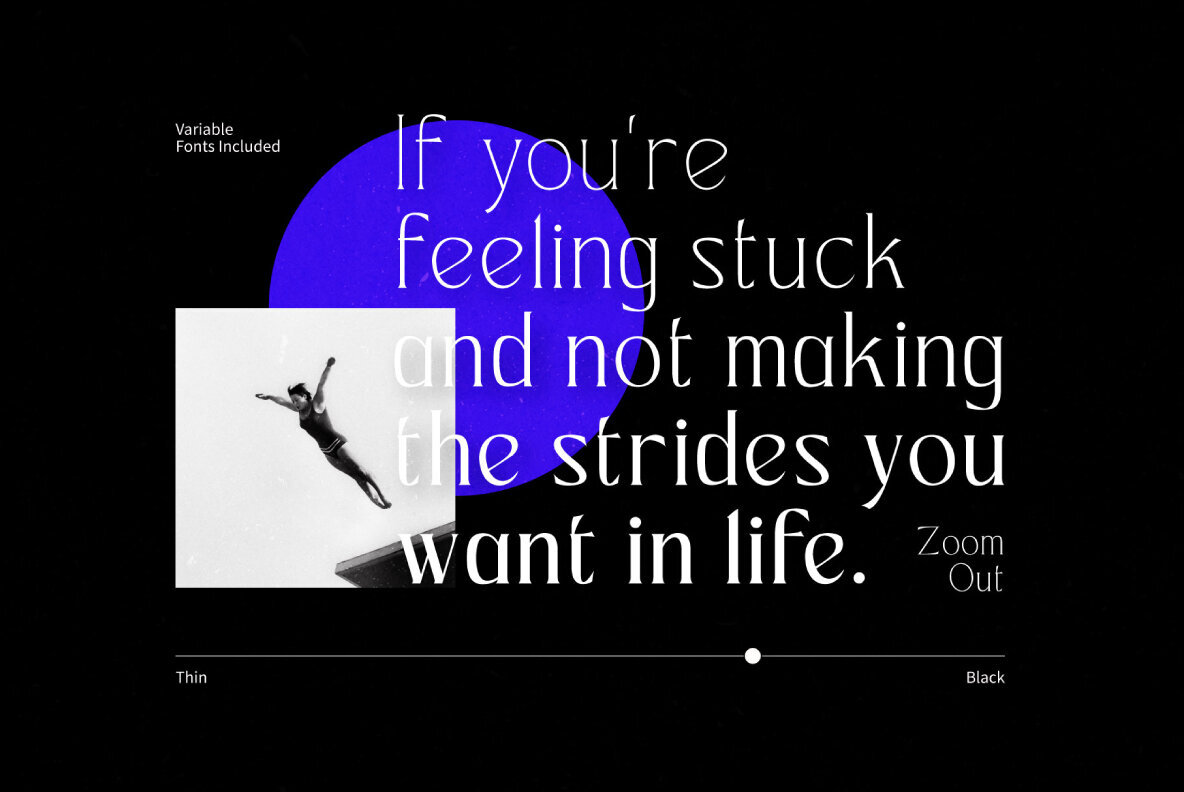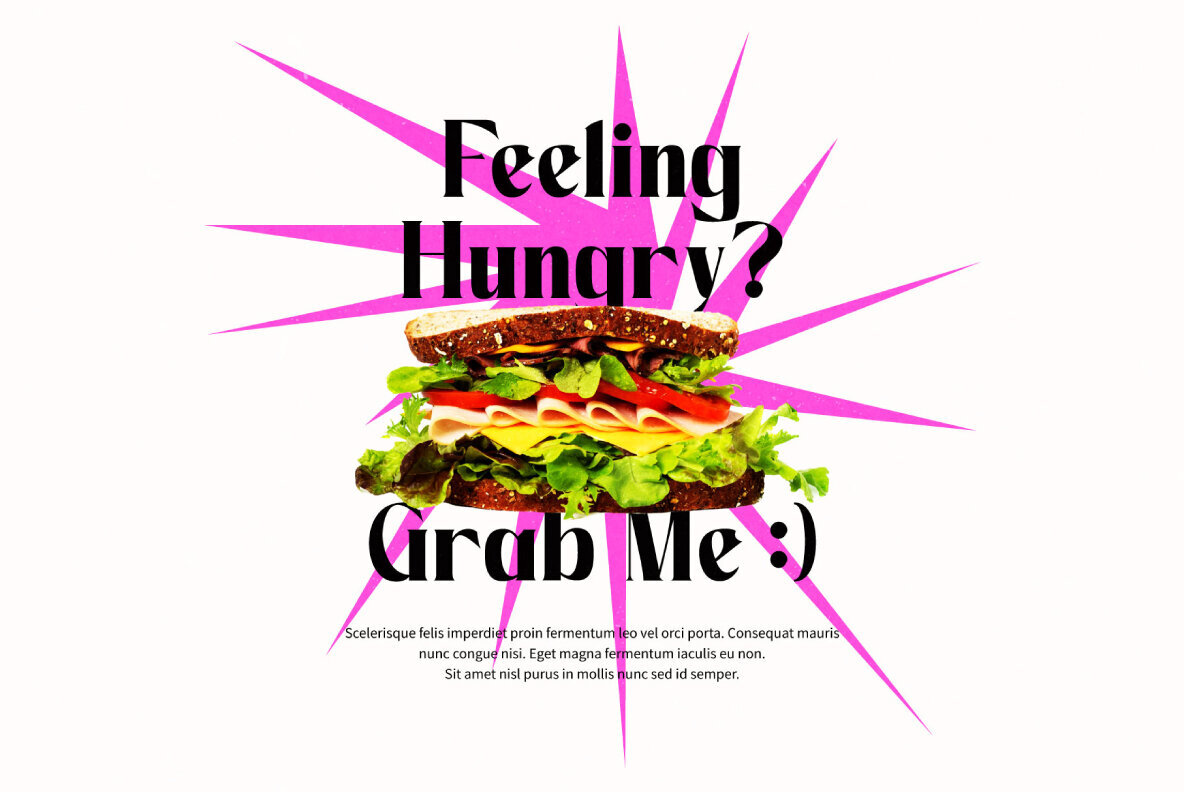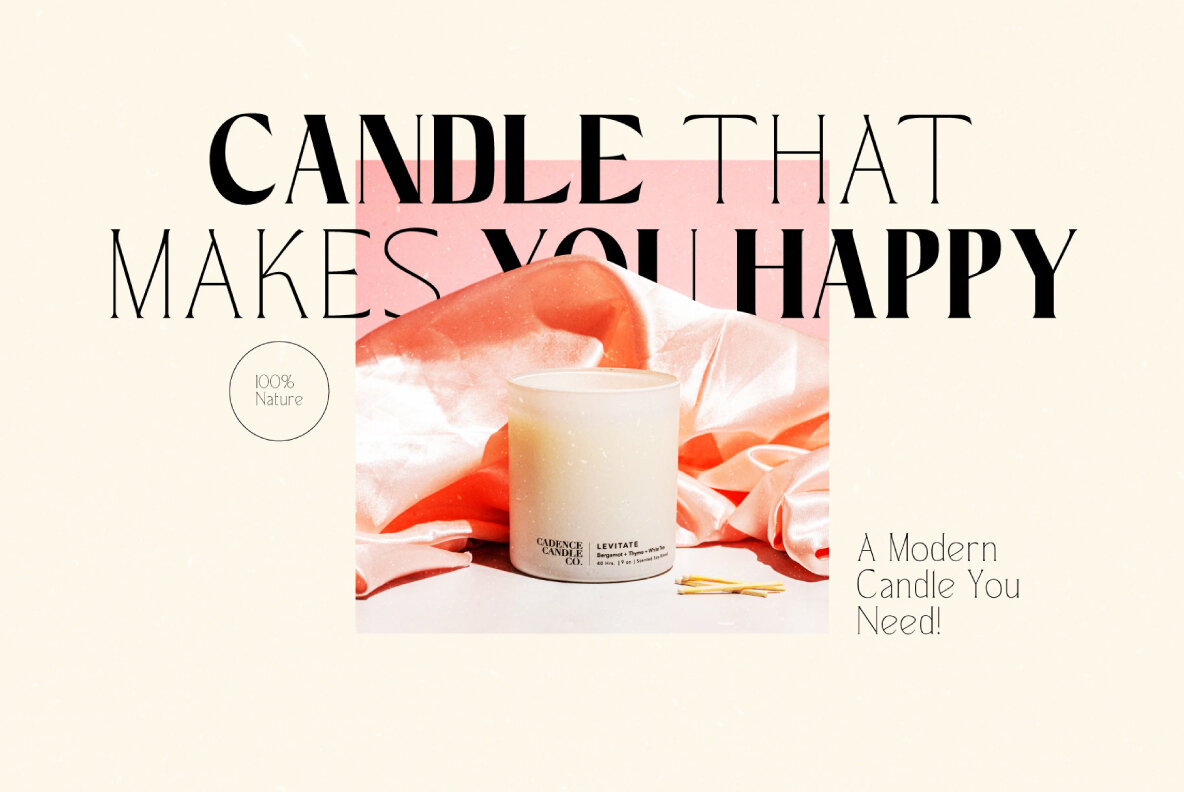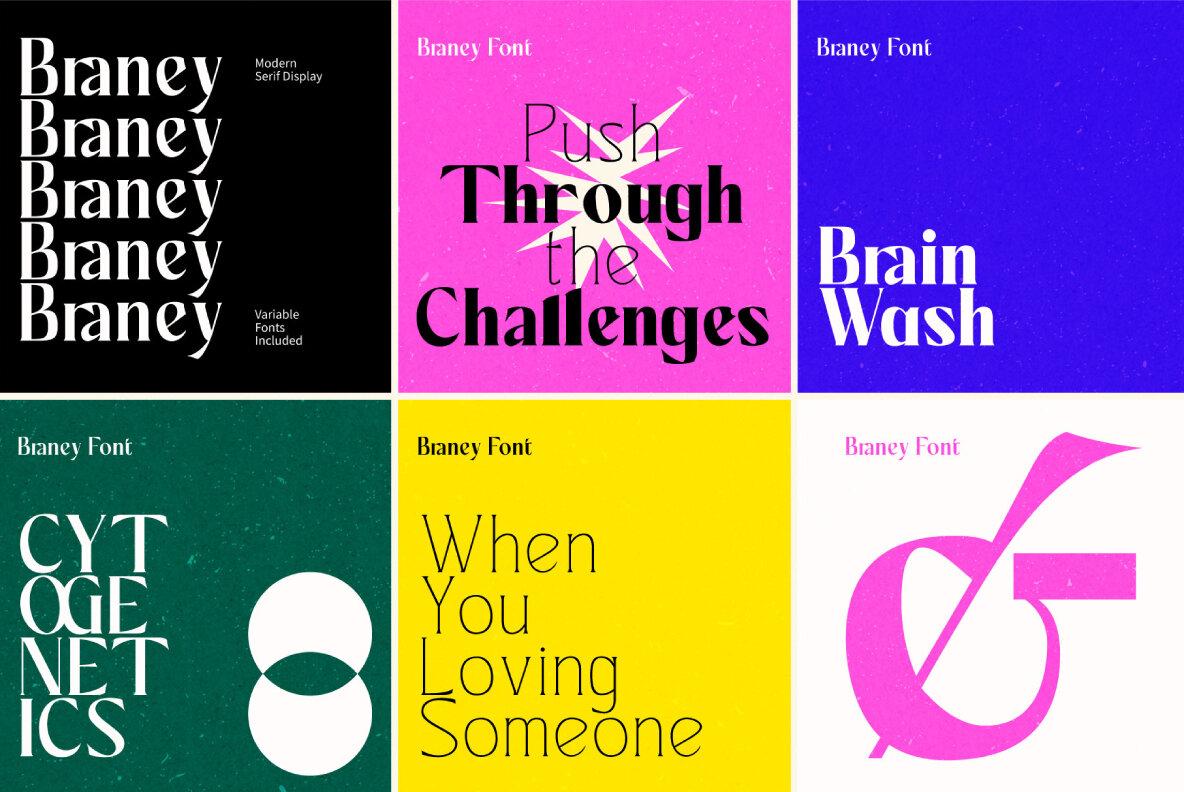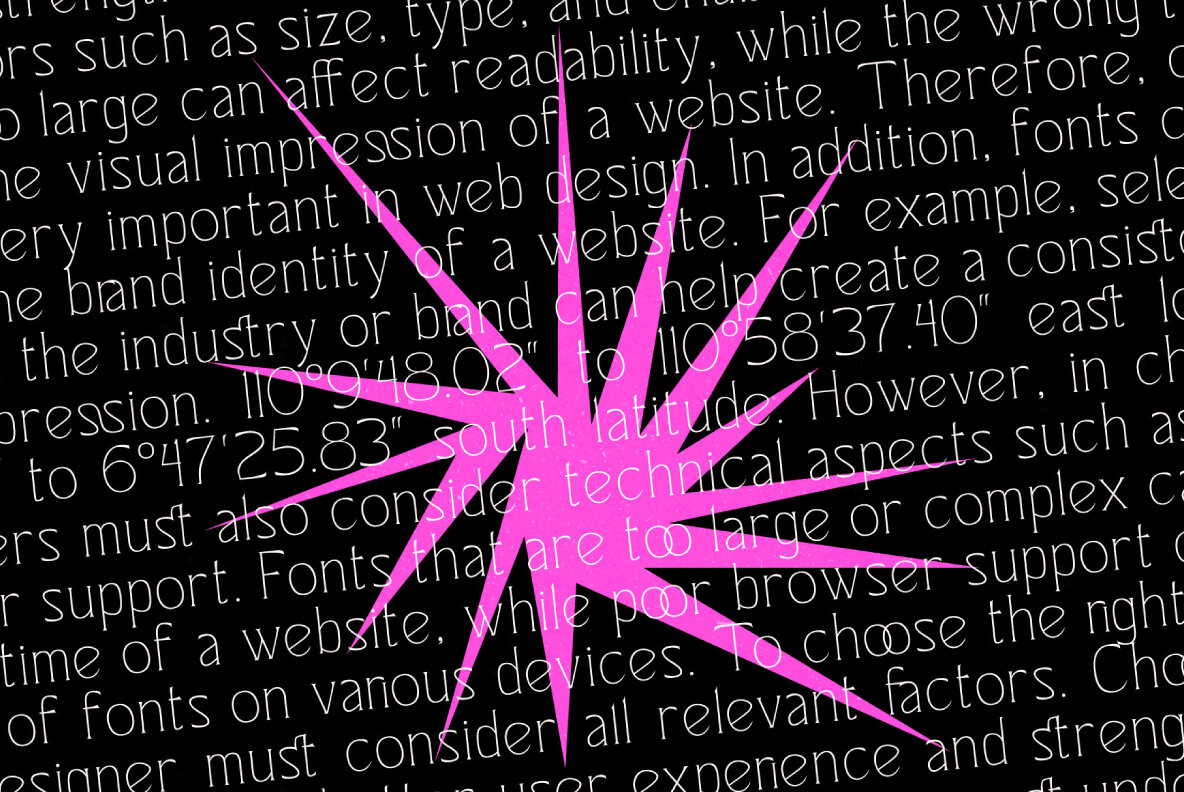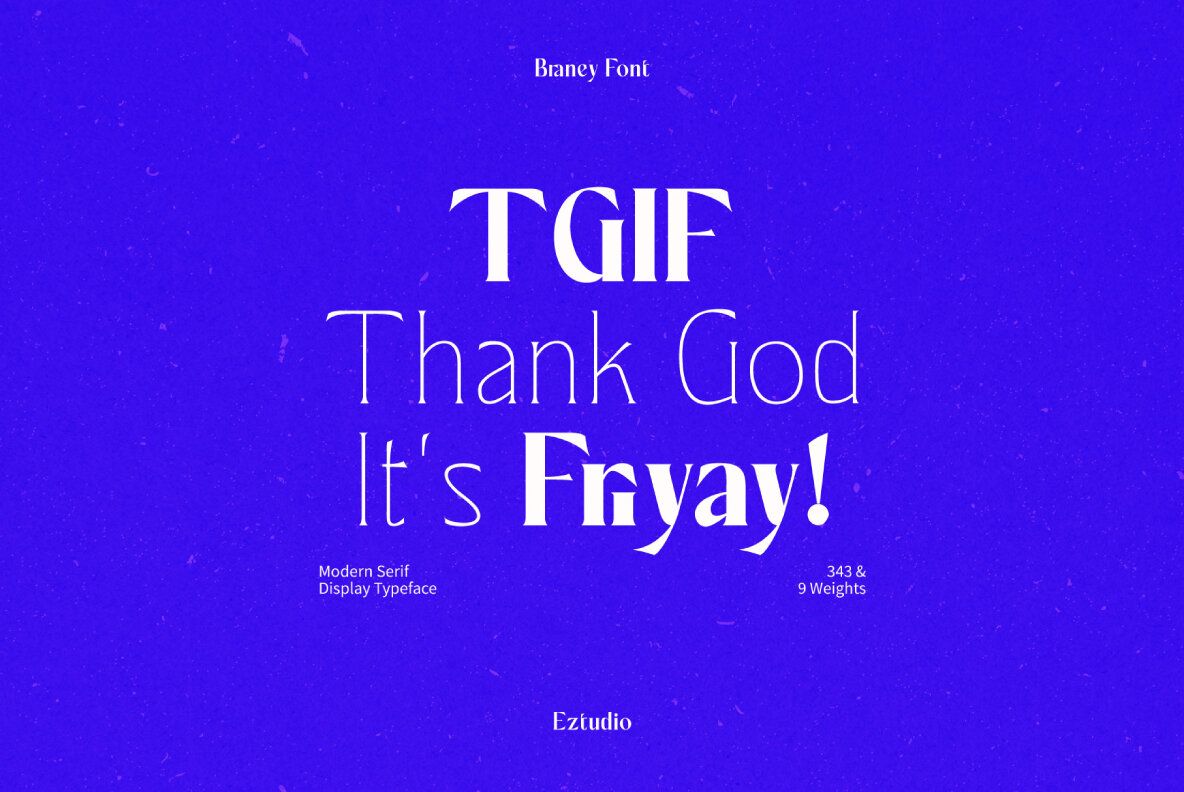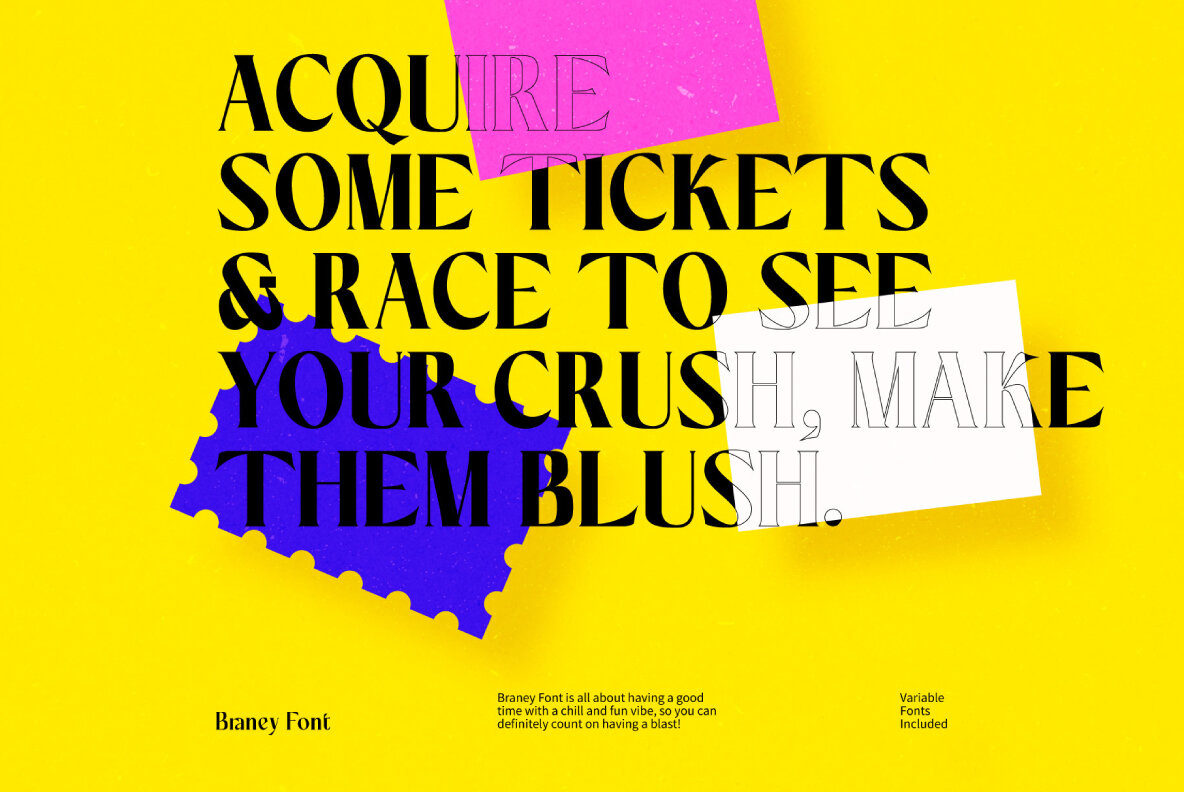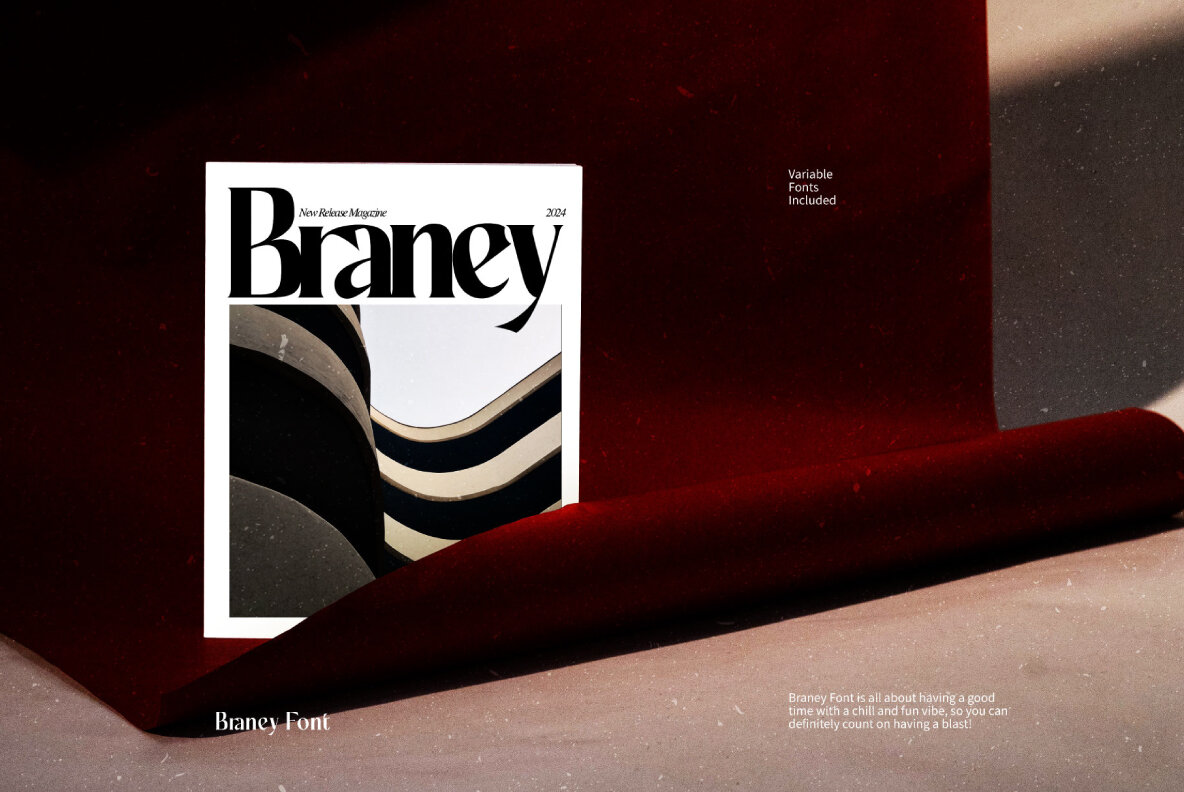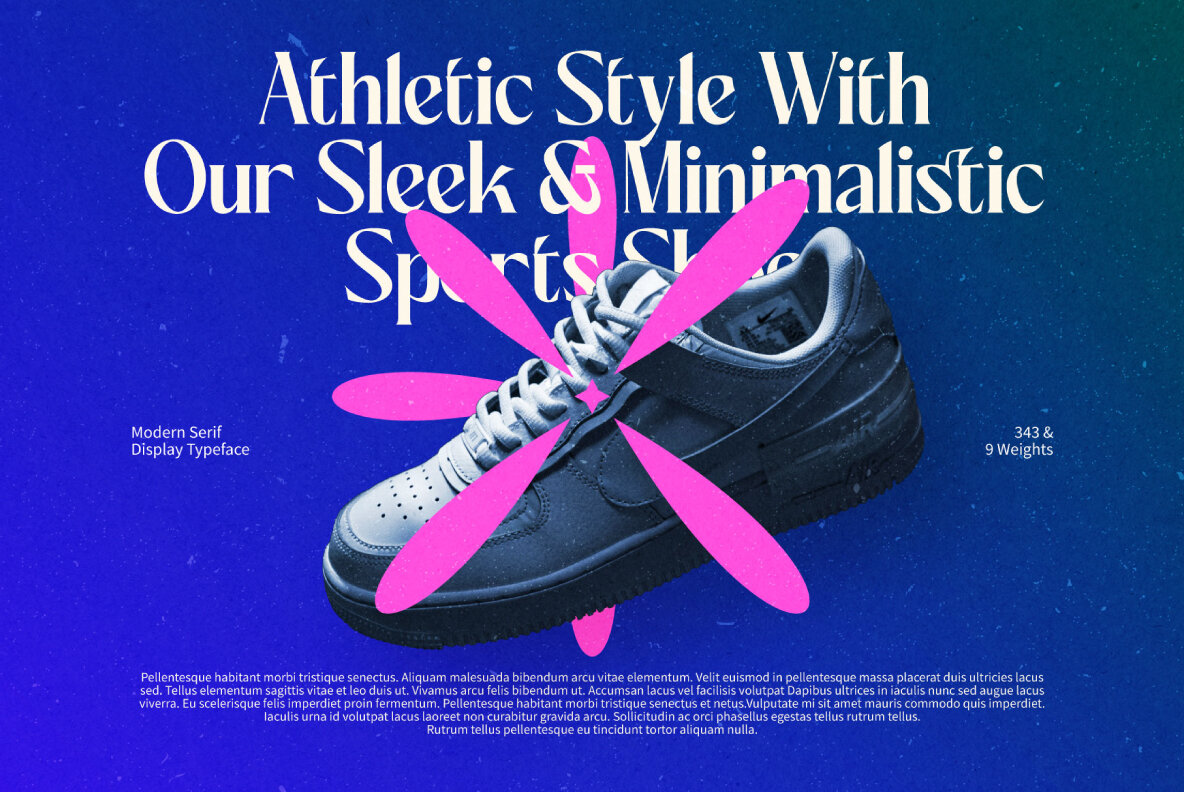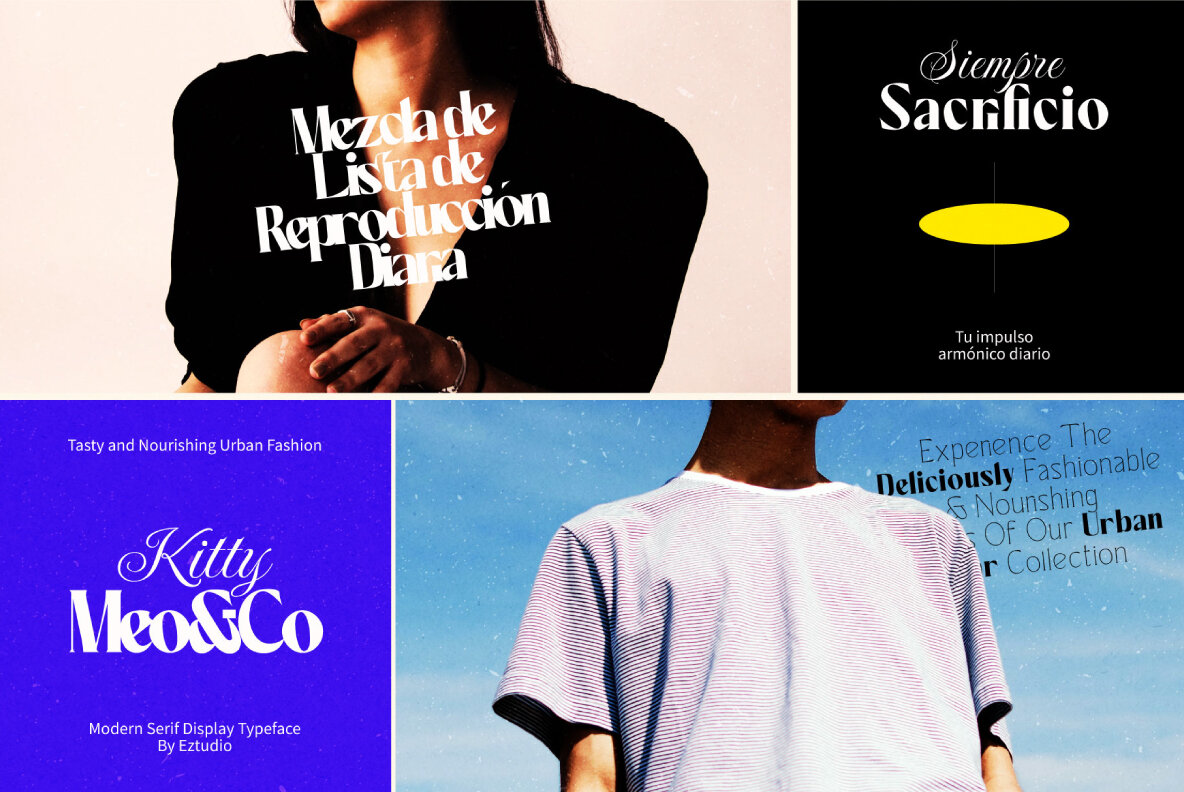
Ez-braney is a contemporary serif font that adds a touch of sophistication to any design. This modern display serif is ideal for crafting elegant and luxurious displays, including logos, titles, and web or social media visuals.
The Ez-Braney font family features a diverse range of weights:
1. Ez-Barney Thin
2. Ez-Barney Extra Light
3. Ez-Barney Light
4. Ez-Barney Regular
5. Ez-Barney Medium
6. Ez-Barney Semi Bold
7. Ez-Barney Bold
8. Ez-Barney Extra Bold
9. Ez-Barney Black
Explore the versatility of Ez-Braney to enhance your design projects with its refined, contemporary charm.